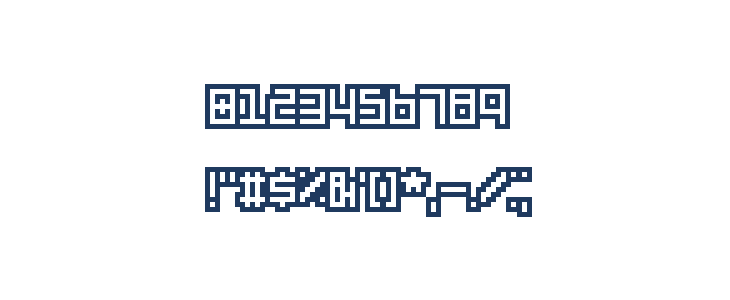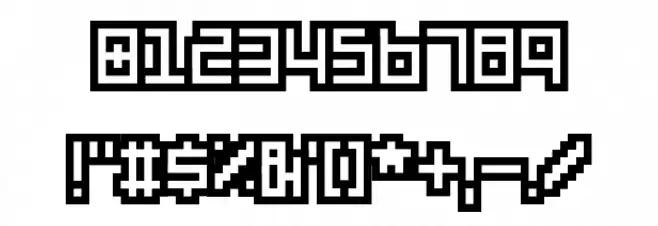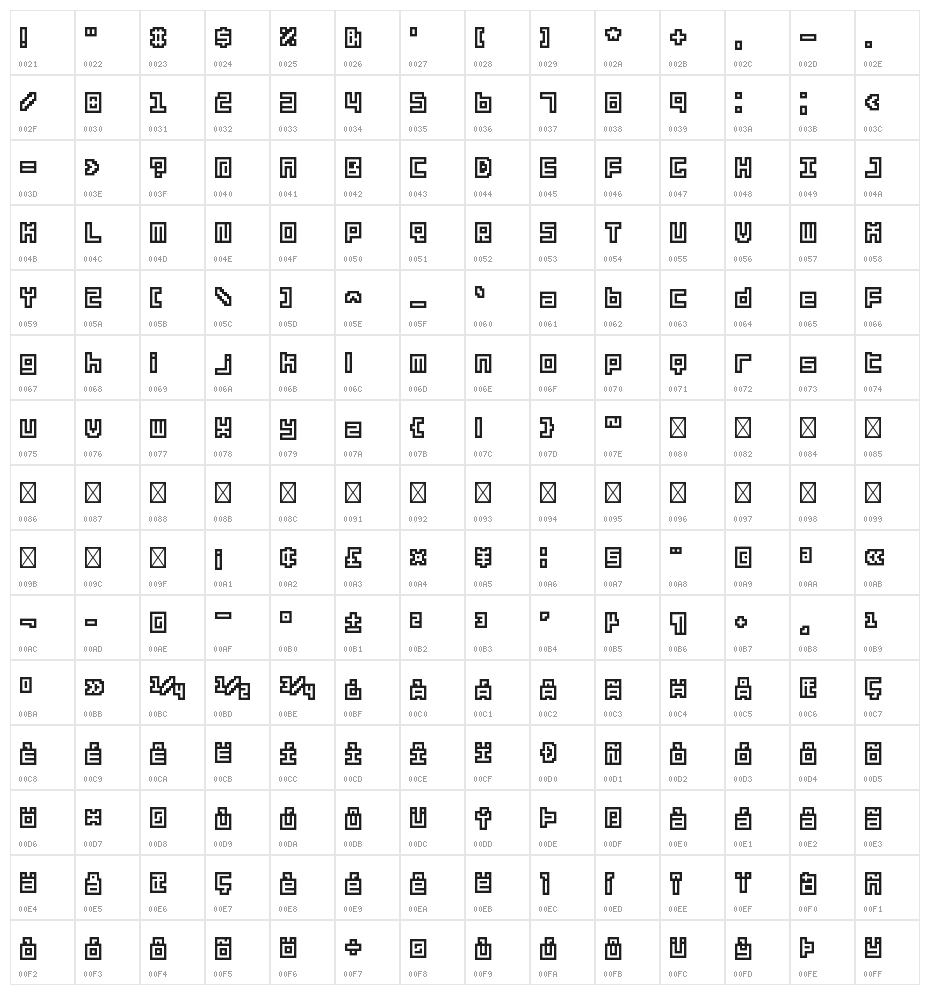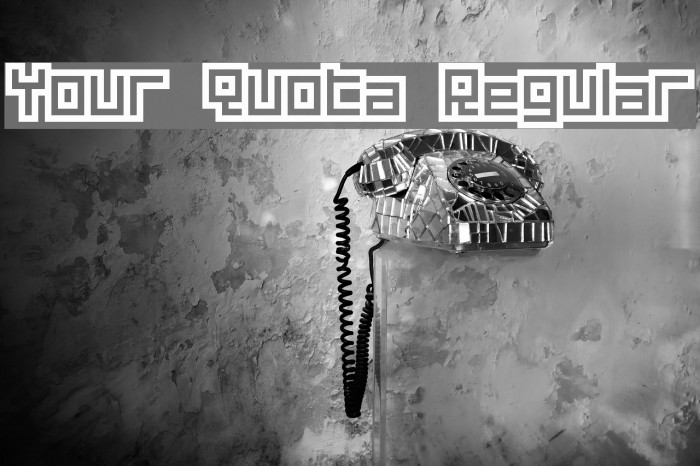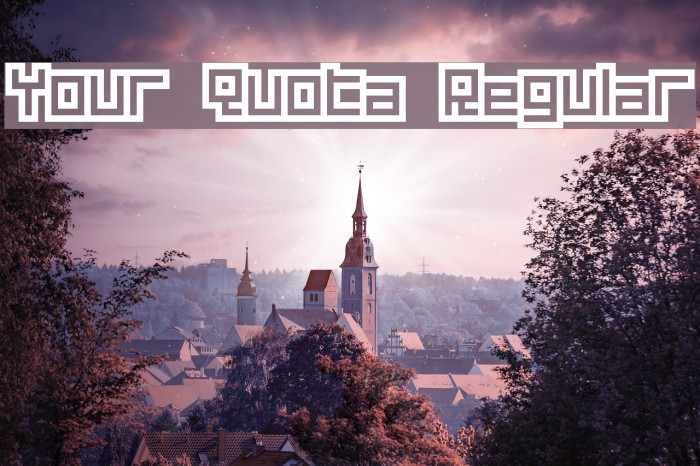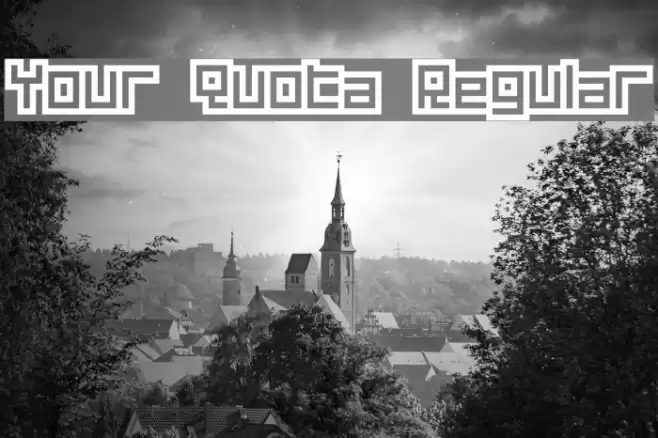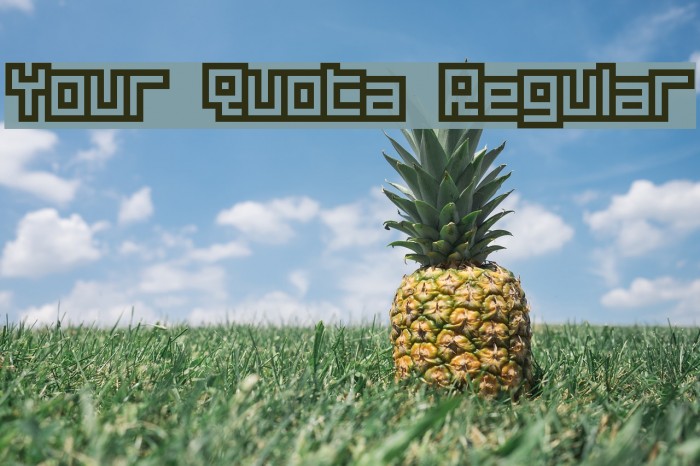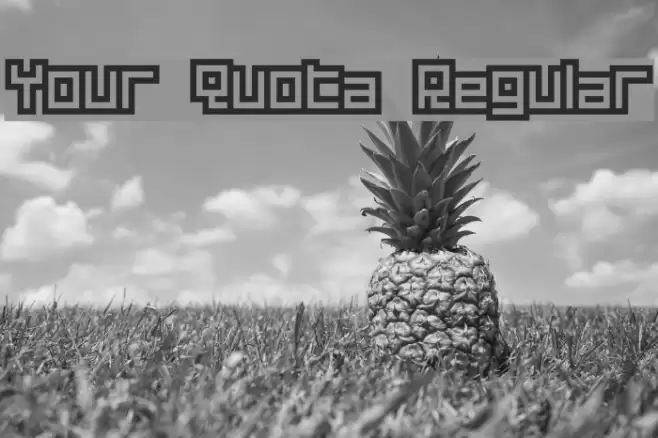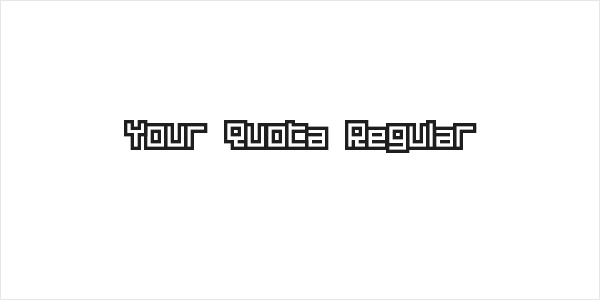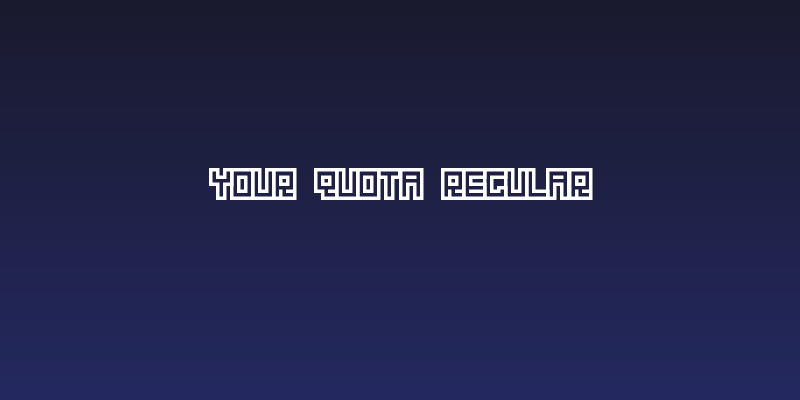
Your Quota Regular Font
Your Quota Regular Description
This font features a bold, geometric design with a distinct pixelated style. The characters are constructed with thick, uniform strokes that create a strong, blocky appearance. The uppercase and lowercase letters maintain a consistent height, contributing to a cohesive look. The numerals and special characters follow the same design principles, ensuring uniformity across all glyphs. The font's overall aesthetic is reminiscent of retro video game graphics, making it ideal for projects that require a nostalgic or digital theme.
| Proposed Projects | Ideal for video game graphics, digital art projects, retro-themed posters, and tech-related branding. |